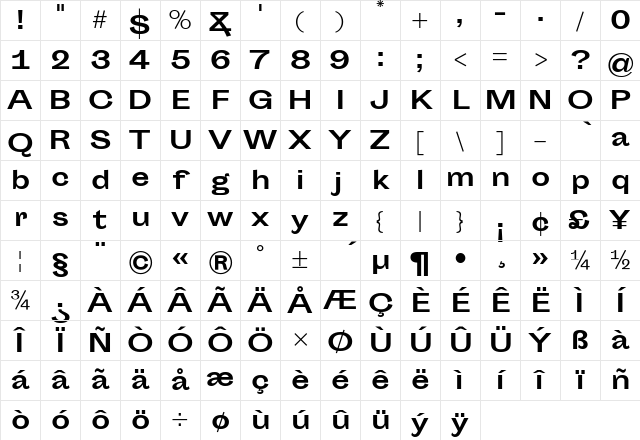
Sporting Grotesque Bold
Foundry: Lucas LE BIHAN
Designer: Lucas LE BIHAN
Design Context for Sporting Grotesque
Sporting Grotesque brings high-energy athletic personality to the page - its confident, muscular forms are built for impact. Its bold stroke weight gives it real presence on the page.
Pro Tip: Use Sporting Grotesque in all-caps headlines where its athletic energy can fully express itself. Pair with a solid, simple sans for supporting text.
Who designed the Sporting Grotesque Bold font?